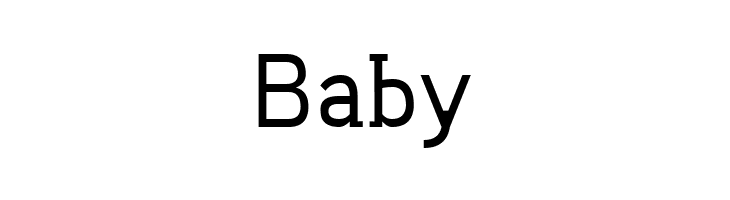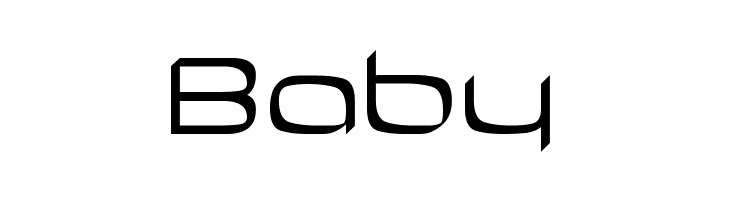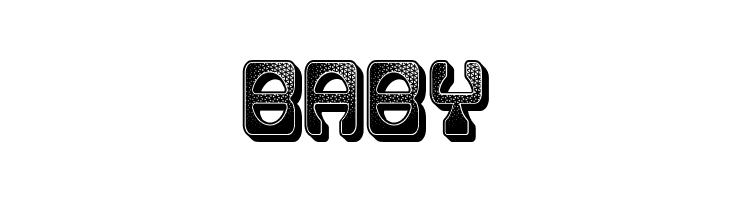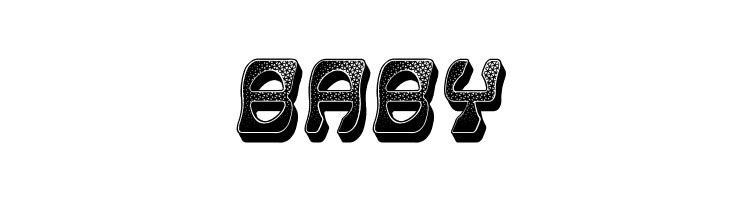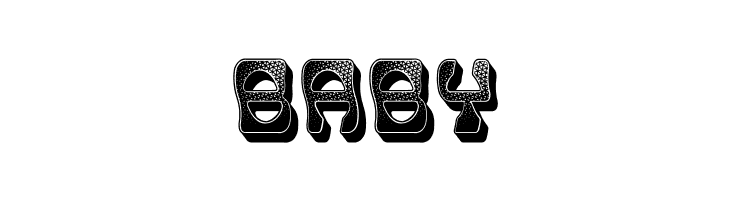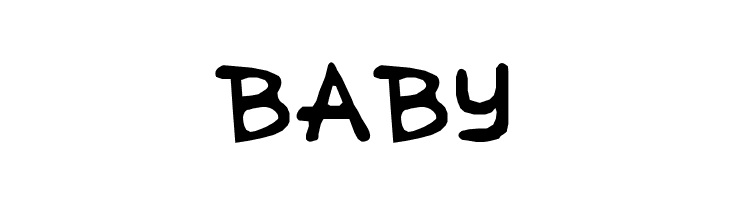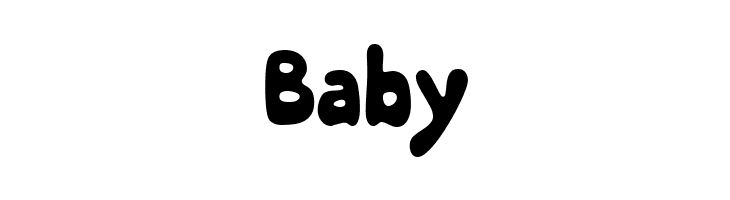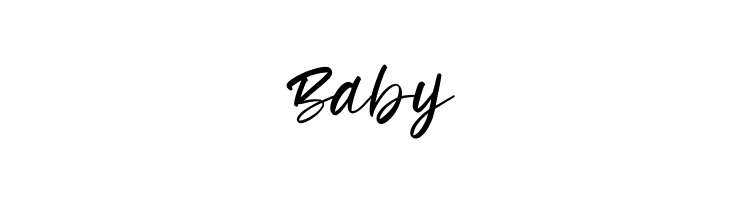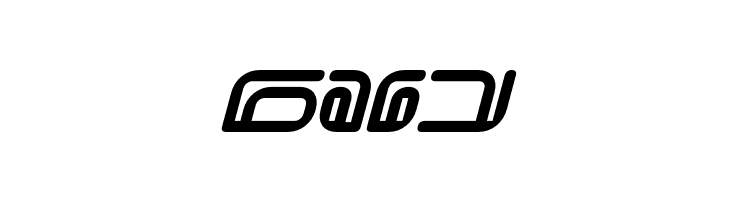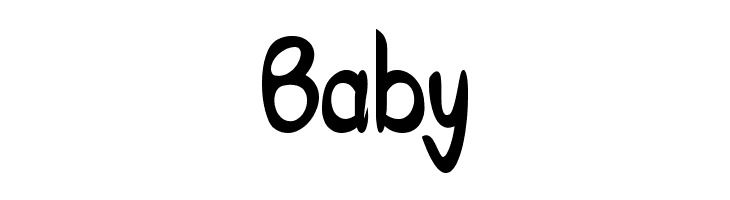
A bold, playful font with rounded, hand-drawn characters.
A bold, brush-style font with an energetic and artistic appearance.
A bold, 3D carved font with a playful, textured design.
A rugged, hand-carved font with an organic, etched appearance.
A modern, clean font with excellent readability and balanced proportions.
A clean, modern font with balanced proportions and excellent readability.
A distressed, grungy font with irregular edges and a rough texture.
A dynamic, oblique font with irregular, brush-like strokes.
A modern, outlined font with geometric lines and a sleek, airy appearance.
A playful, hand-drawn font with bold, rounded strokes and a whimsical style.
A modern, angular font with a futuristic design.
A futuristic, geometric font with sharp angles and clean lines.
A bold, futuristic font with sharp, angular edges and a geometric structure.
A cursive, elegant script font with a smooth, flowing style.
A bold, decorative font with a 3D effect and dotted texture.
An elegant script font with flowing, cursive letters and calligraphic flair.
A bold, decorative font with a 3D effect and intricate detailing.
A bold, decorative font with a 3D effect and dotted interior pattern.
An ornate and decorative font with bold, swirling serifs and intricate detailing.
A lively and expressive script font with fluid, dynamic letterforms.
Elegant serif font with high contrast and classic appeal.
A futuristic, rounded, and oblique font with a dynamic and modern style.
A playful, casual handwritten font with smooth, rounded strokes.
A dynamic, flowing script font with elegant, slightly whimsical characters.
A playful, handwritten script font with fluid strokes and a lively appearance.
A bold, decorative serif font with intricate line shading and a classic, authoritative style.
A bold, playful font with thick, rounded characters and a hand-drawn feel.
A playful, casual handwritten font with flowing, interconnected letterforms.
A playful, bold font with rounded edges and a hand-drawn style.
A fluid, cursive font with a handwritten, elegant style.
A dynamic, flowing script font with elegant cursive strokes.
A playful, handwritten-style font with bold strokes and a lively appearance.